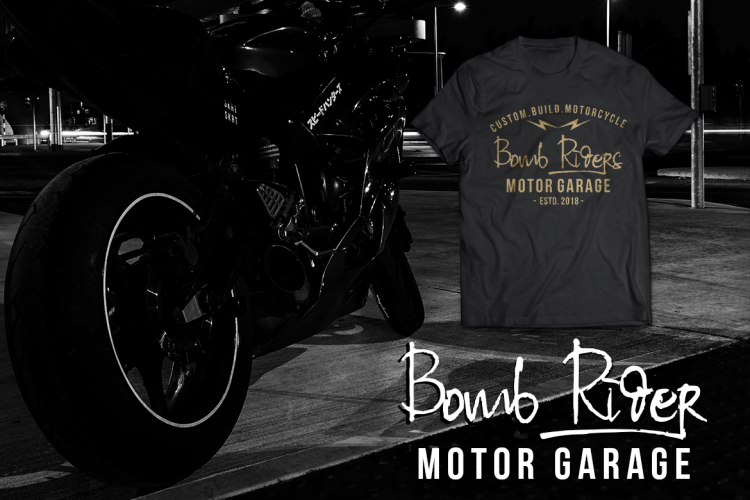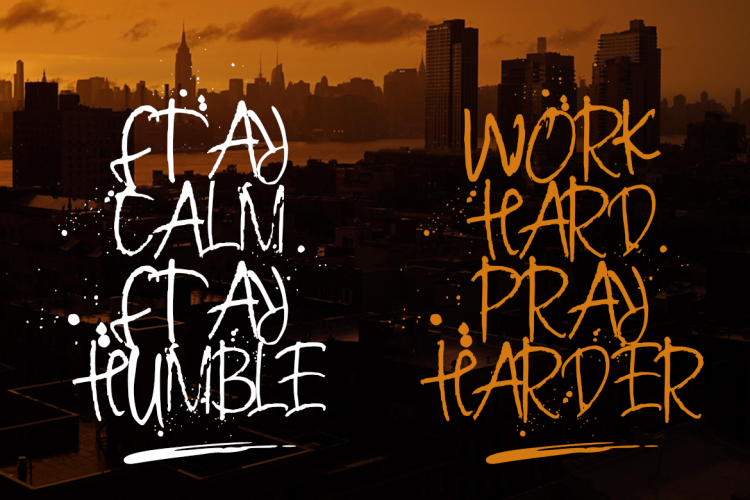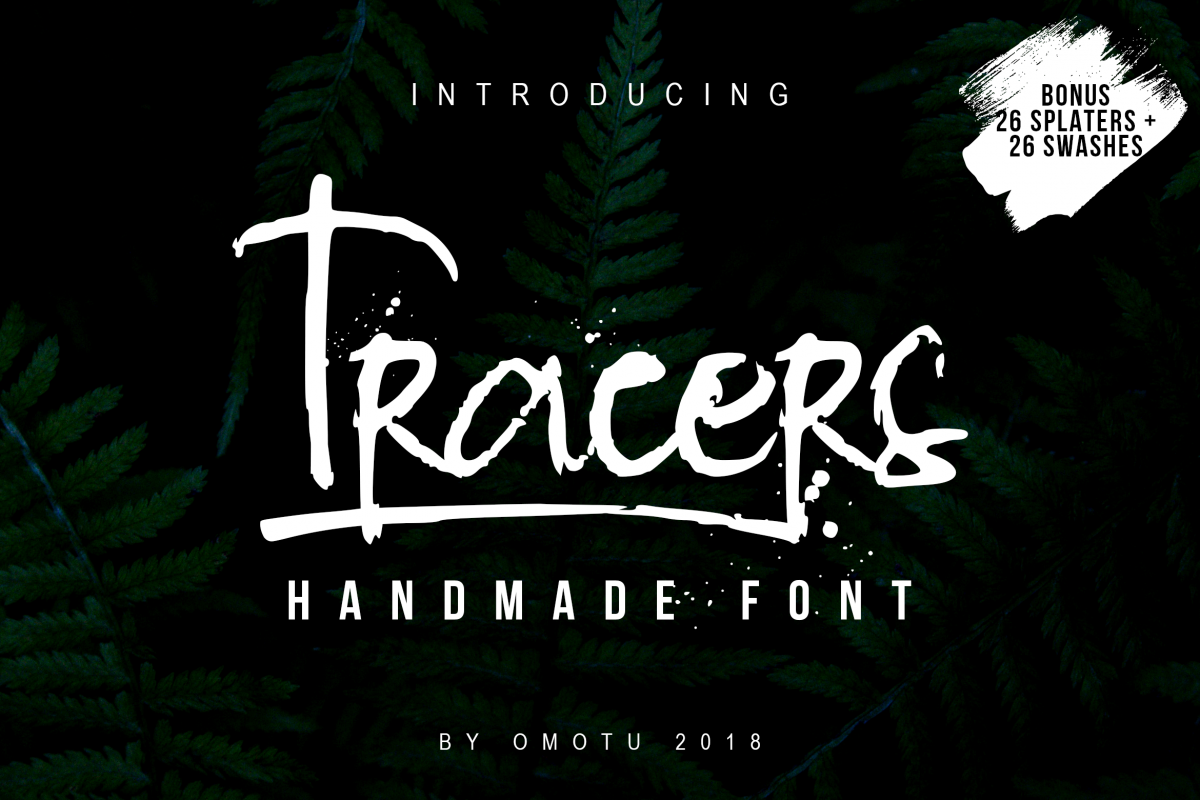
Tracers – Handmade Script Font
Tracers is a hand-made pen font, designed to combine perfectly and allow you to create stunning hand-lettering quickly and easily. Also included 26 bonus swashes and 26 bonus splaters, ideal for giving your text that final touch of finesse!